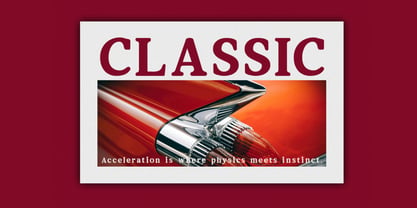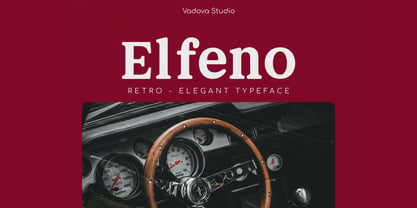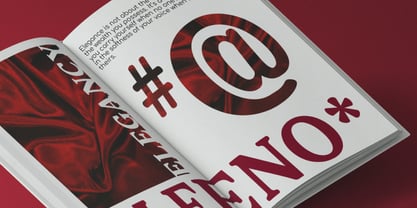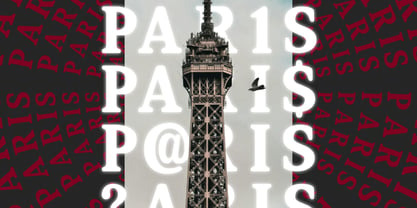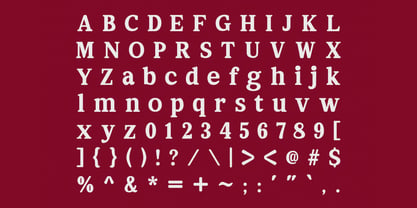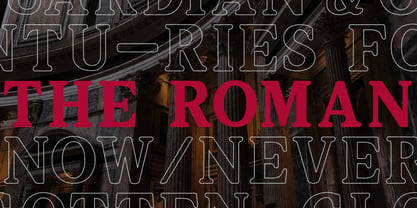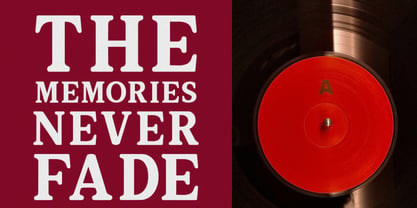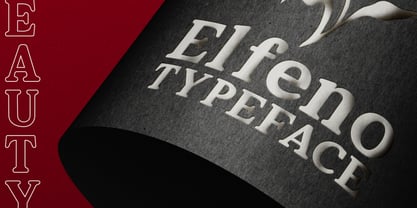
Elfeno
Elfeno is a retro elegant serif typeface inspired by classic vinyl covers, vintage interiors, and timeless editorial design. It features sturdy serif structures, balanced proportions, and slightly softened edges that create a warm yet confident visual character. The font includes uppercase and lowercase letters, numerals, and a full set of punctuation, making it suitable for both display headlines and refined typographic compositions. Elfeno is highly relevant for designers seeking a refined retro atmosphere with strong visual presence. It works beautifully for album covers, vintage posters, editorial layouts, brand identities, packaging, and lifestyle visuals where nostalgia, elegance, and character are essential to the message.